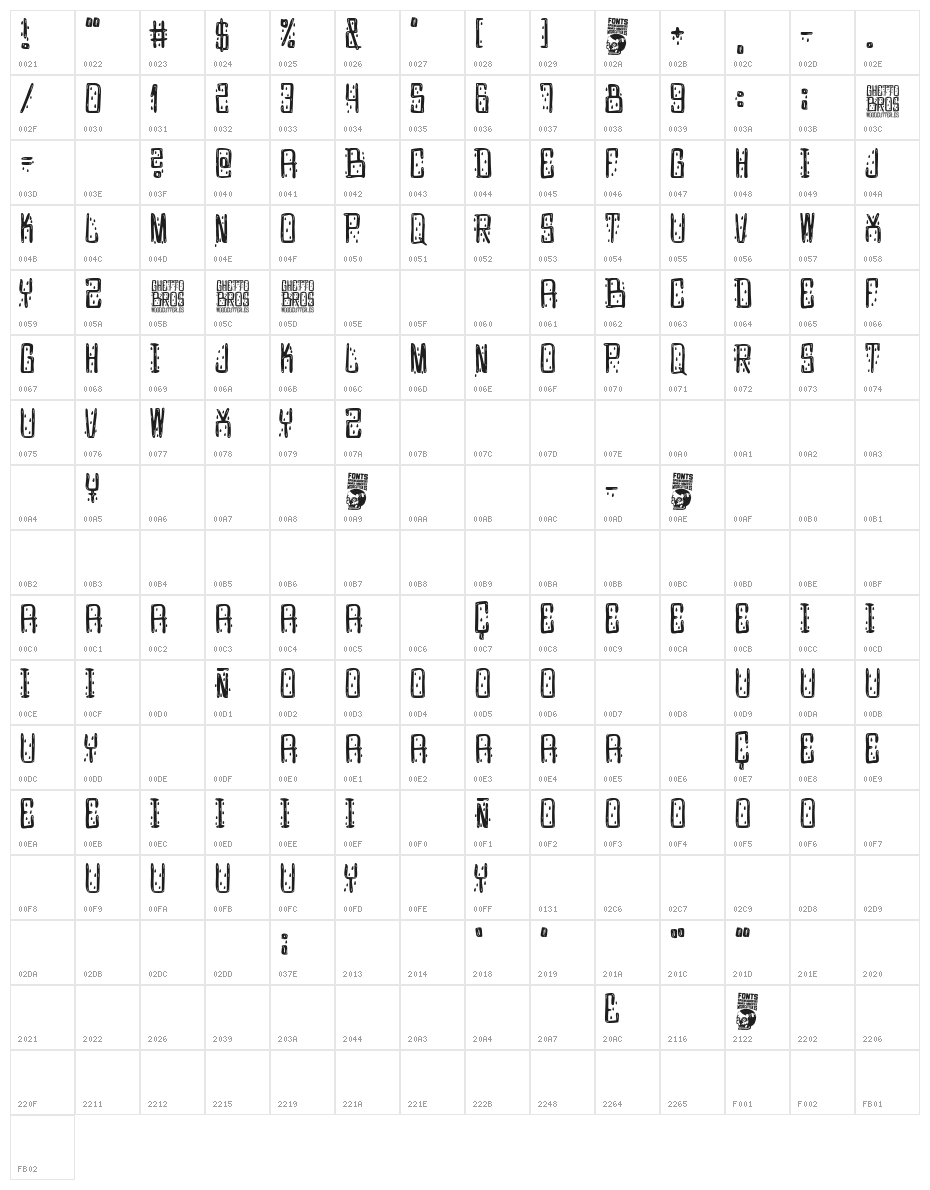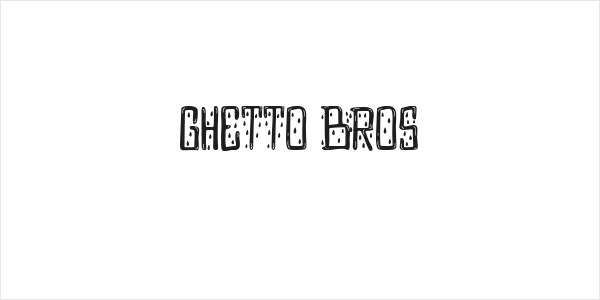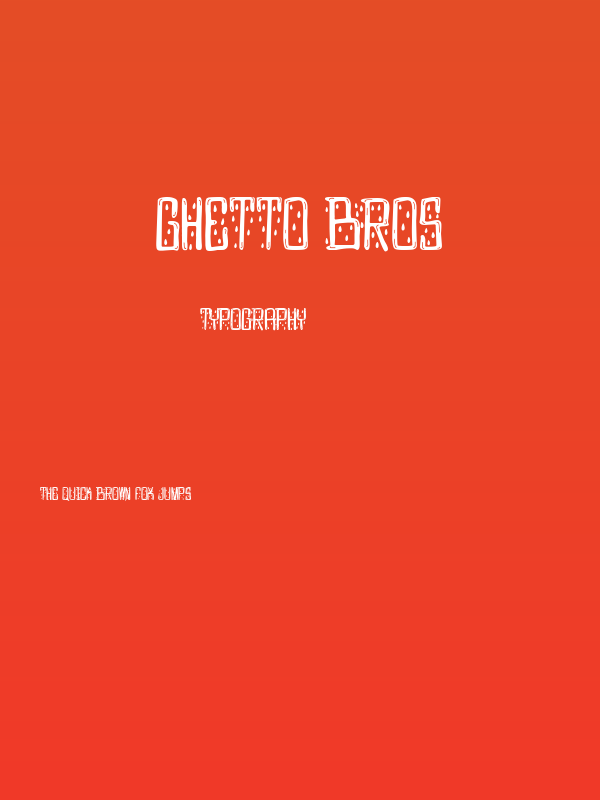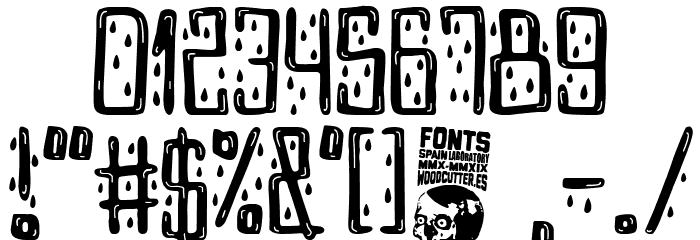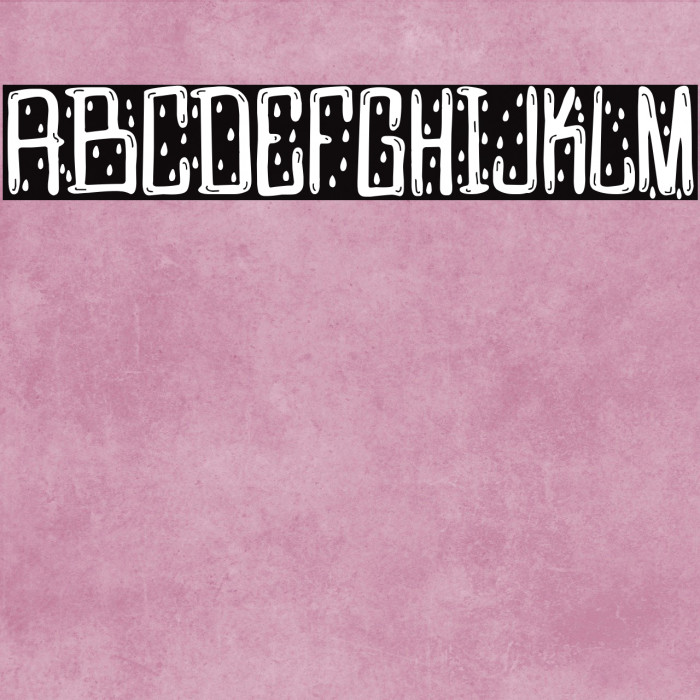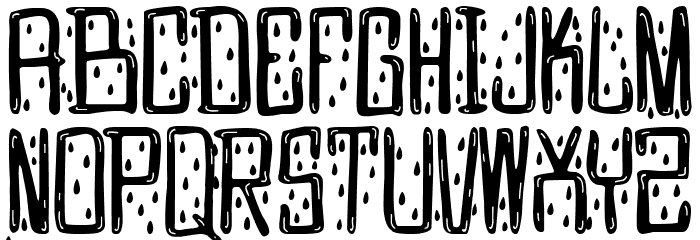
Ghetto bros Font
Ghetto bros Description
This font features a bold, graffiti-inspired style with a playful and urban aesthetic. Each character is outlined with a thick, uneven stroke, giving it a hand-drawn appearance. The letters are filled with irregular, dripping patterns that add a dynamic and edgy feel. The uppercase and lowercase letters maintain a consistent style, with the uppercase being slightly more elongated. Numbers and special characters follow the same design, ensuring a cohesive look across all elements. This font is ideal for projects that require a bold and eye-catching display, such as posters, album covers, or streetwear branding.
| Overall Style | Urban, Playful, Edgy |
| Proposed Projects | Ideal for street art designs, music album covers, urban-themed posters, and edgy branding projects. |